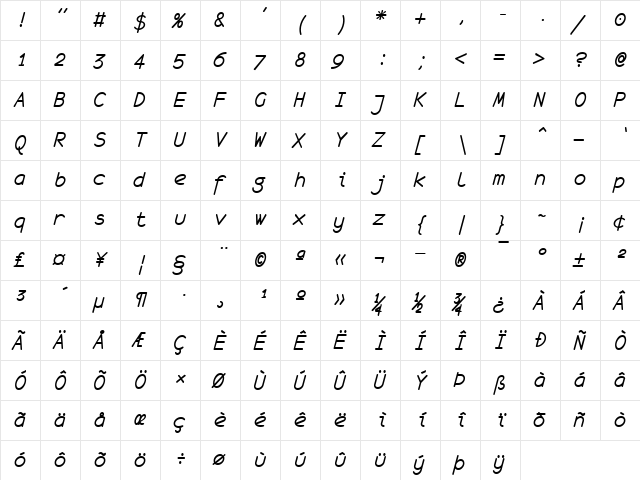
monofur italic
Design Context for monofur Typeface
monofur uses fixed-width spacing throughout, giving it the structured, systematic character associated with coding environments and technical documentation. The slanted form adds forward momentum and visual energy.
Pro Tip: Use monofur with slightly increased line-height for extended reading — fixed-width spacing can feel dense in longer passages without extra breathing room.